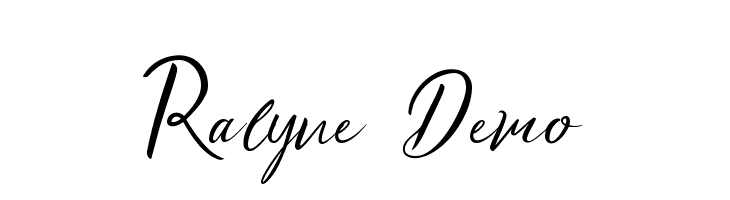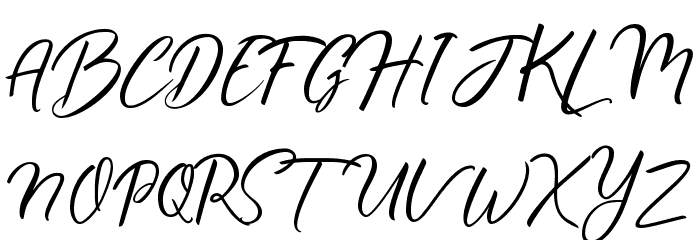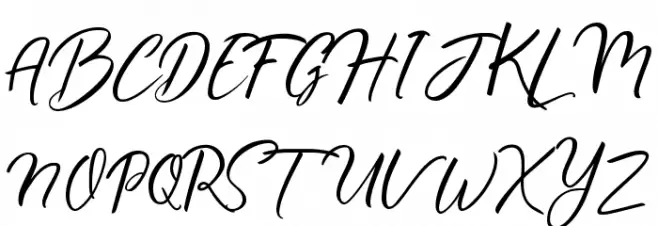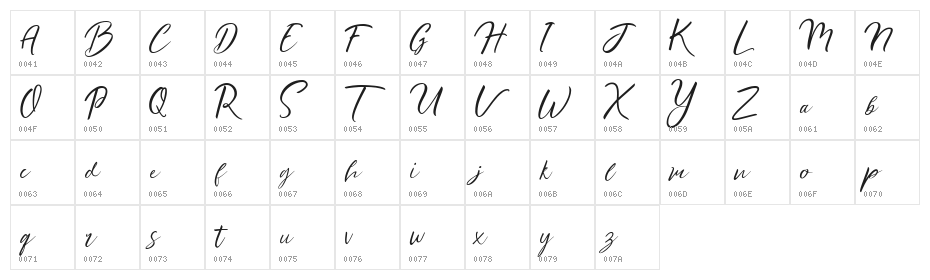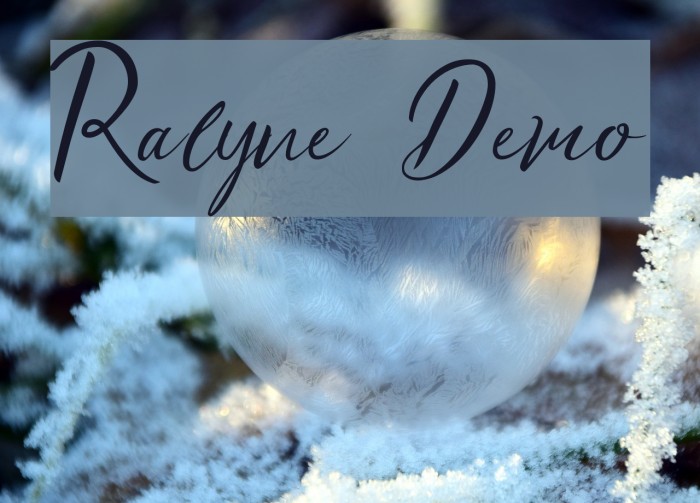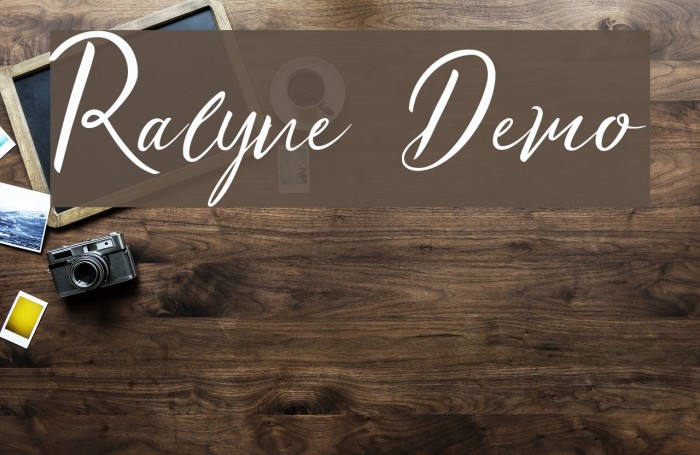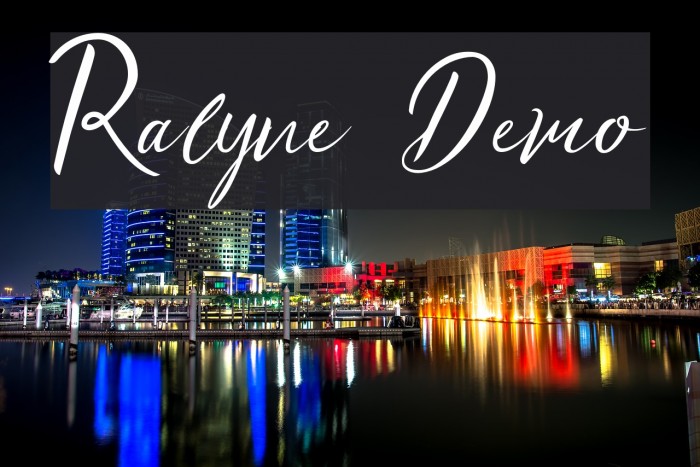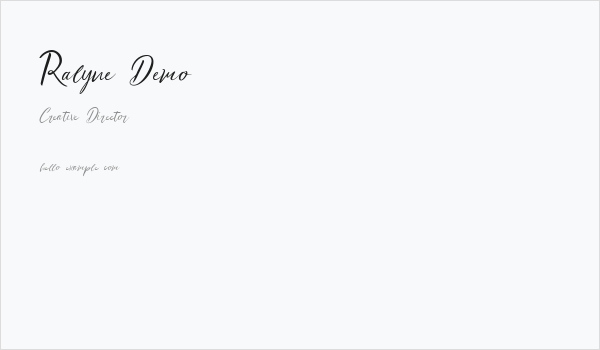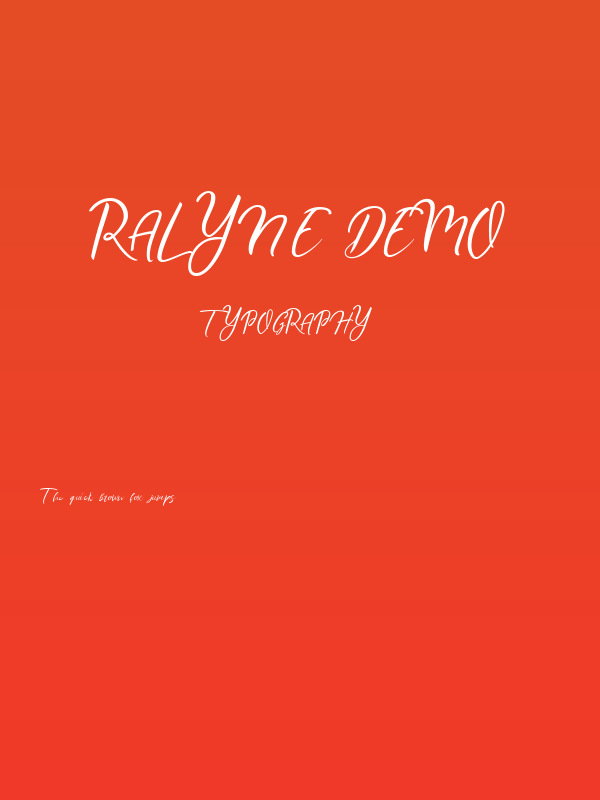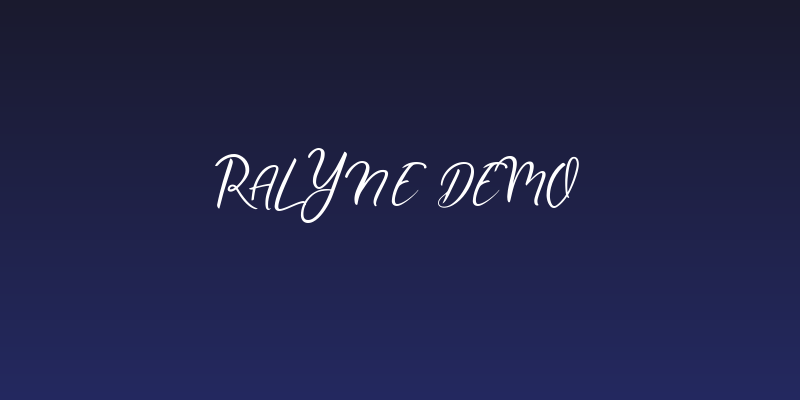
Ralyne Demo Font
Ralyne Demo Description
This font features a flowing, cursive style with elegant, sweeping strokes that give it a sophisticated and artistic appearance. The letters are interconnected, creating a seamless and fluid look that is both graceful and dynamic. The uppercase letters are bold and prominent, while the lowercase letters maintain a consistent flow with slightly varied heights, adding to the font's charm. The overall design is reminiscent of traditional calligraphy, yet it maintains a modern twist with its clean lines and balanced proportions. This font is perfect for adding a touch of elegance and personality to any design project.
| Proposed Projects | Ideal for wedding invitations, branding, greeting cards, and elegant logo designs. |